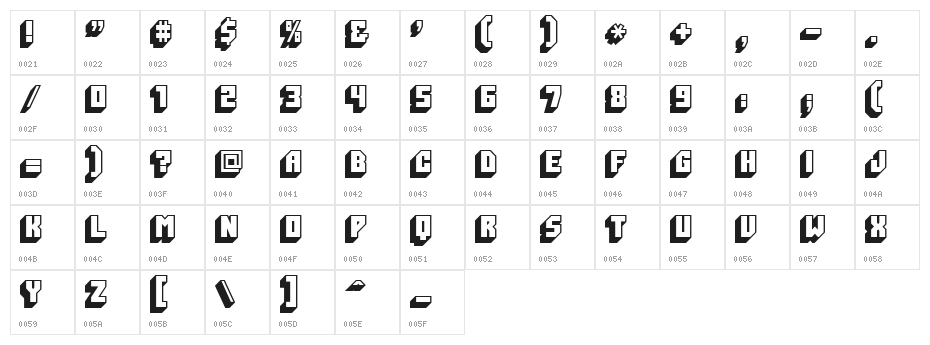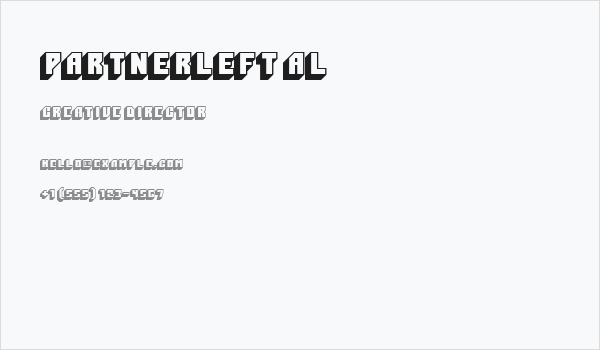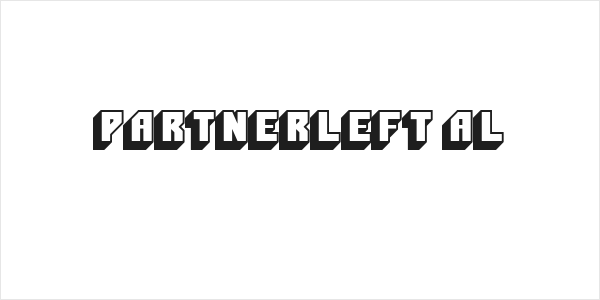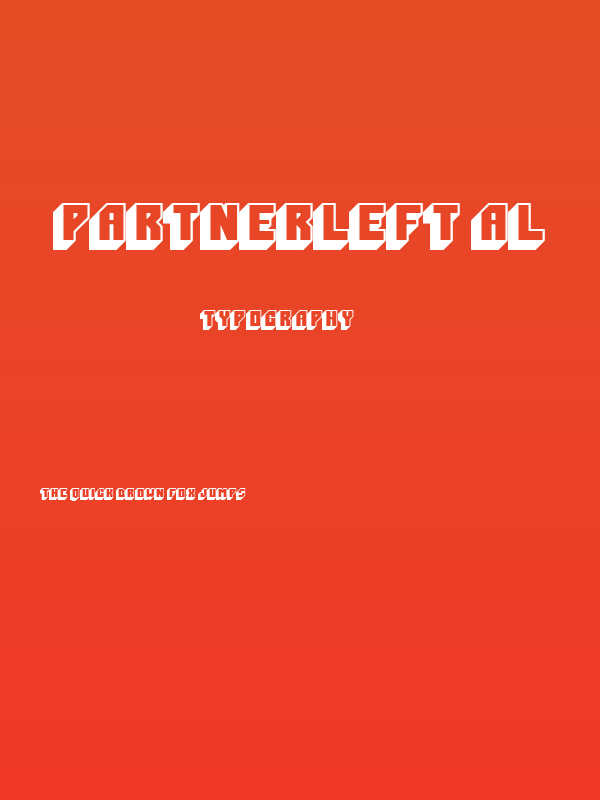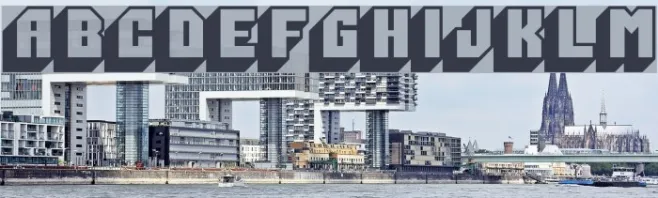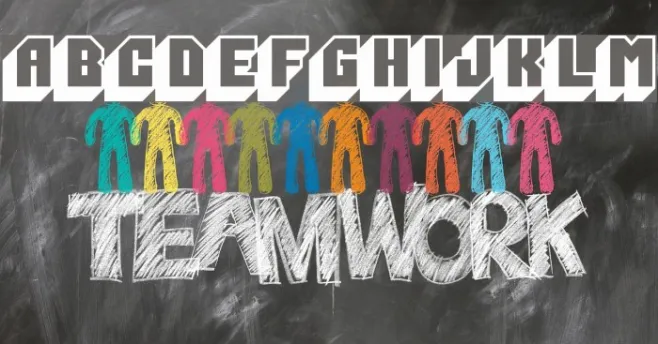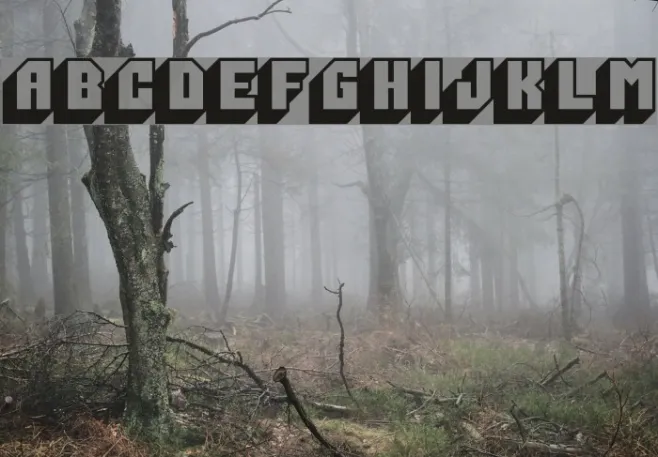
PartnerLeft Al Font
PartnerLeft Al Description
This font features a bold, three-dimensional block style with a strong shadow effect, giving it a striking and impactful appearance. The characters are uppercase and have a geometric, angular design that emphasizes their robust and solid form. The shadow effect creates a sense of depth and volume, making the letters appear as if they are popping out of the page. This style is reminiscent of retro or vintage designs, often used in contexts that require a bold statement. The font is highly legible and maintains consistency across all characters, including numbers and special symbols, which are designed with the same three-dimensional effect.
| Proposed Projects | Ideal for poster designs, video game titles, logos, and any project needing a bold, eye-catching typeface. |